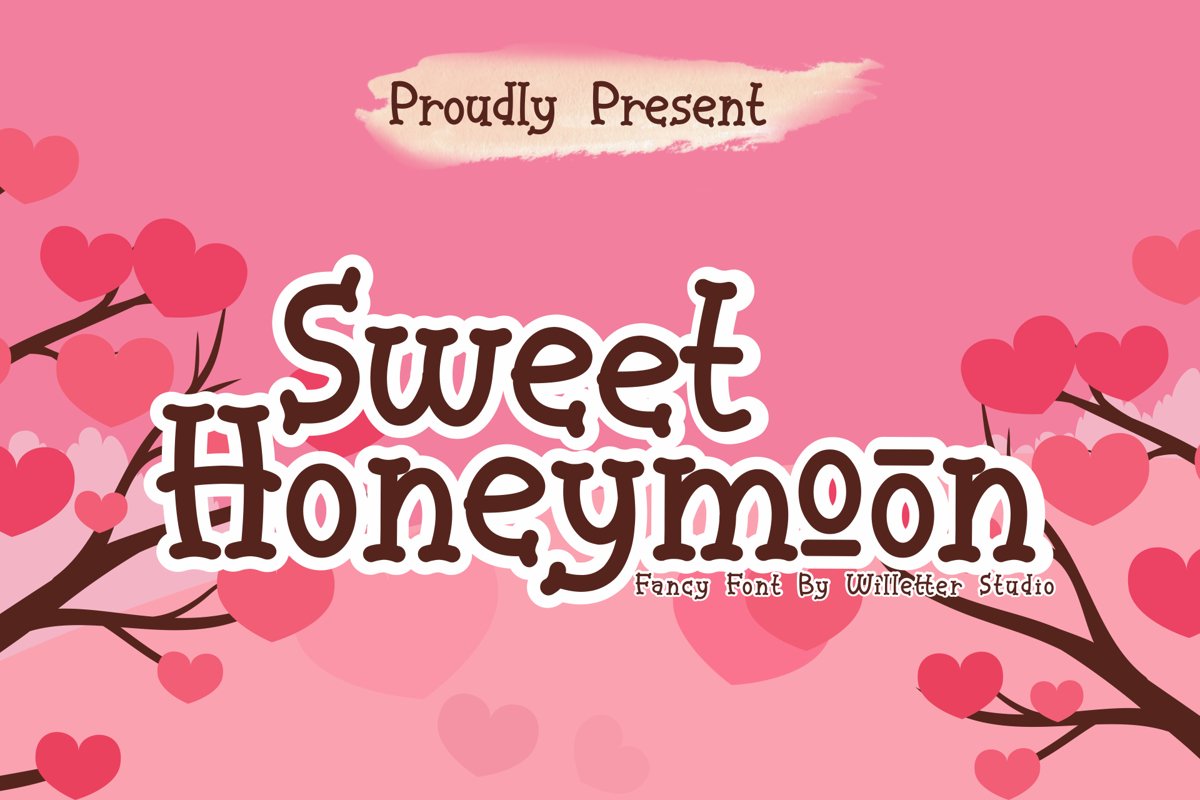
Sweet Honeymoon
Sweet Honeymoon is a playful, fancy font that puts a smile on your projects and will inspire you to create something fun and memorable. It is perfect for headings, flyers, greeting cards, product packaging, book cover, printed quotes, logotype, apparel design, album covers, etc.
Sweet Honeymoon